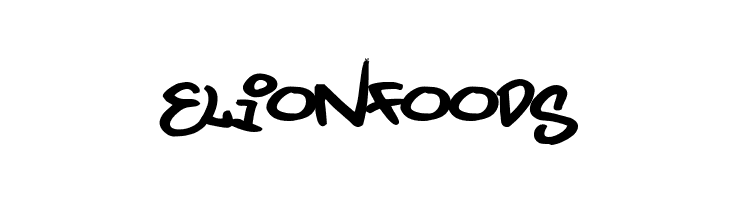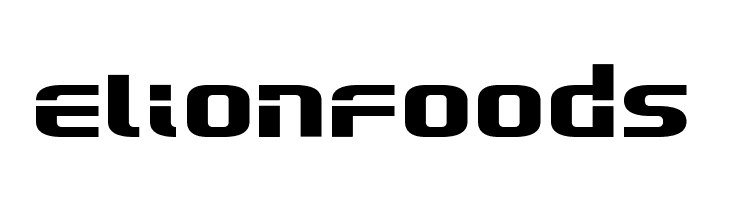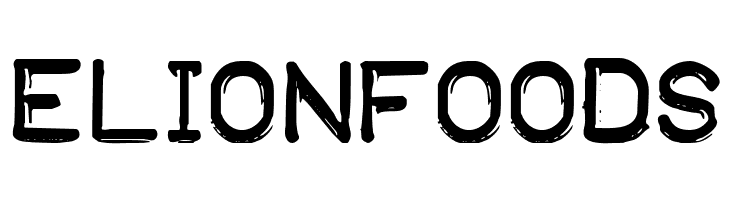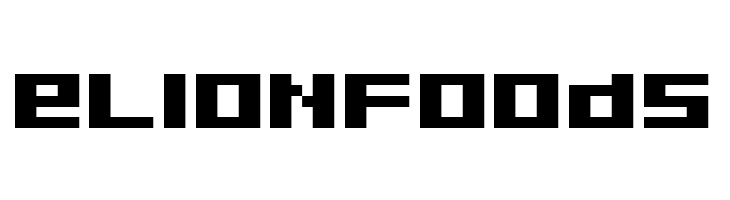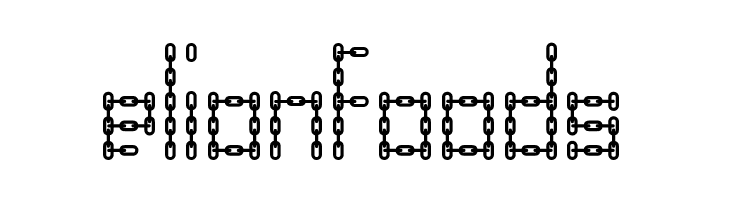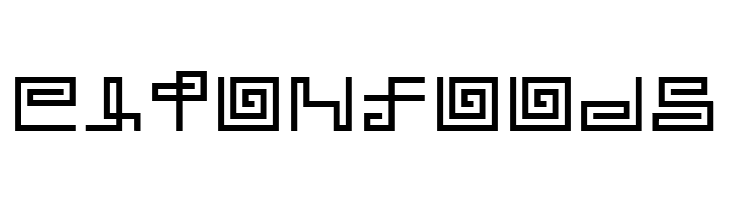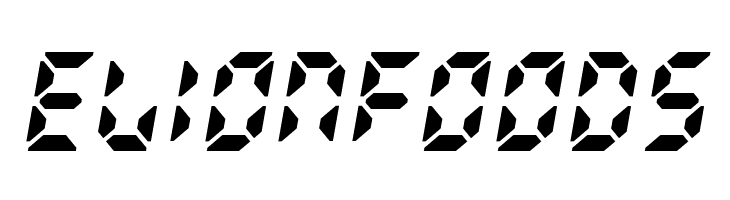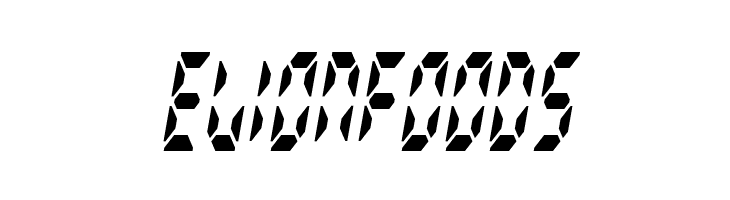
A bold, graffiti-inspired font with dynamic, flowing strokes and an urban aesthetic.
A bold, embossed-style font with a retro label-maker aesthetic.
A bold, pixelated font with a retro, digital aesthetic.
A bold, distressed font with a grunge aesthetic and textured, worn appearance.
A decorative font styled with interconnected chain links for a bold, industrial look.
A geometric, maze-like font with a futuristic, digital aesthetic.
A bold, geometric font with a futuristic, digital aesthetic.
A bold, jagged font with a rebellious, distressed aesthetic.
A bold, geometric font with a futuristic, digital aesthetic.